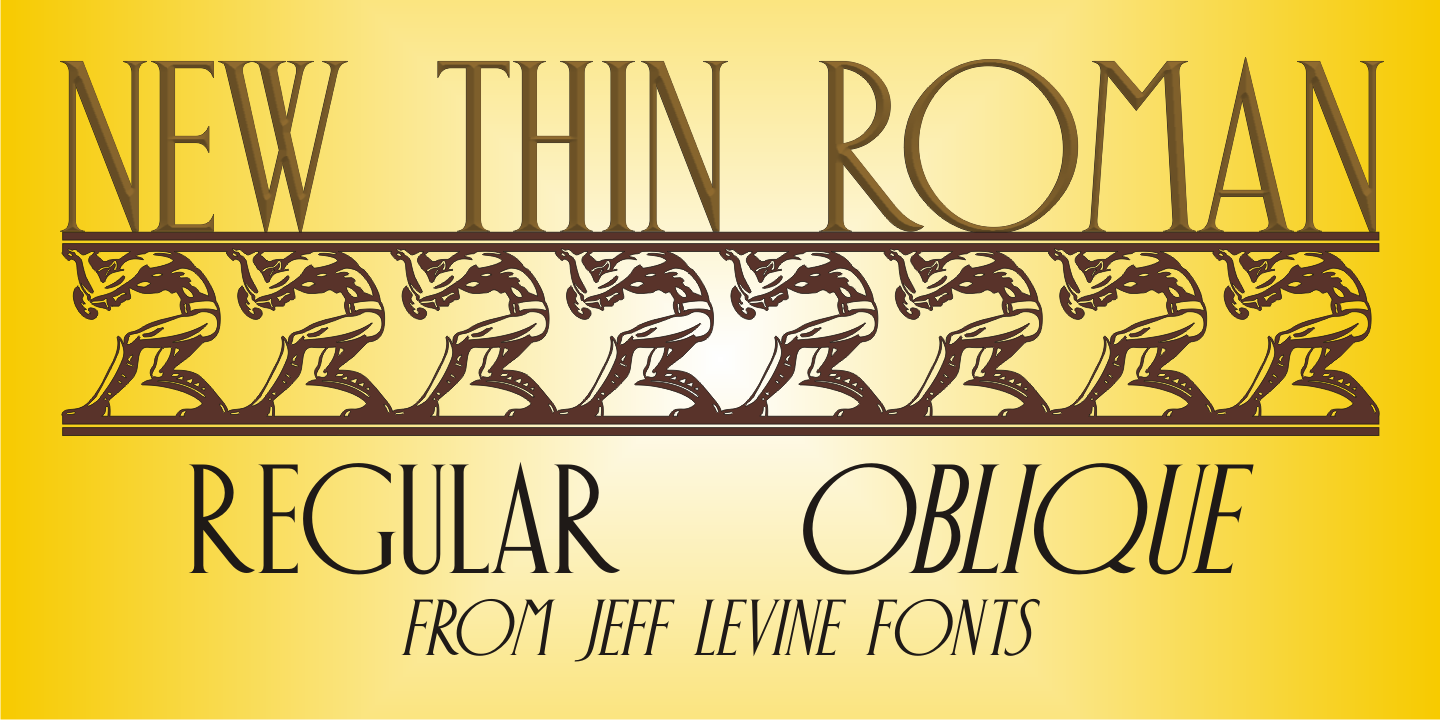
New Thin Roman JNL Font is perfect for elegant editorial layouts, minimalist fashion magazines, sophisticated book typography, delicate wedding stationery, refined corporate reports, upscale jewelry branding, luxury beauty packaging, and contemporary art publications that require ultra-refined serif typography with classical proportions.
This New Thin Roman JNL Font is exciting because it masterfully combines traditional Roman letterform heritage with ultra-thin contemporary styling, featuring delicate strokes and precise character spacing that creates sophisticated elegance while maintaining exceptional readability for high-end design applications requiring refined typographic expression.
The New Thin Roman JNL Font family includes ultra-thin weights with classical Roman proportions, complete character sets with uppercase and lowercase letters, refined numerals, elegant punctuation, and special characters that provide comprehensive typography solutions for luxury design projects requiring sophisticated serif aesthetics with contemporary minimalism.
Perfect for creating distinguished editorial content and luxury brand communications, New Thin Roman JNL Font Free Download delivers the refined classical typography that transforms text into statements of sophisticated taste and cultural refinement. This distinctive typeface from Jeff Levine represents the perfect fusion of Roman tradition and modern minimalism, making it essential for projects demanding elegant sophistication, editorial excellence, and timeless typographic beauty.